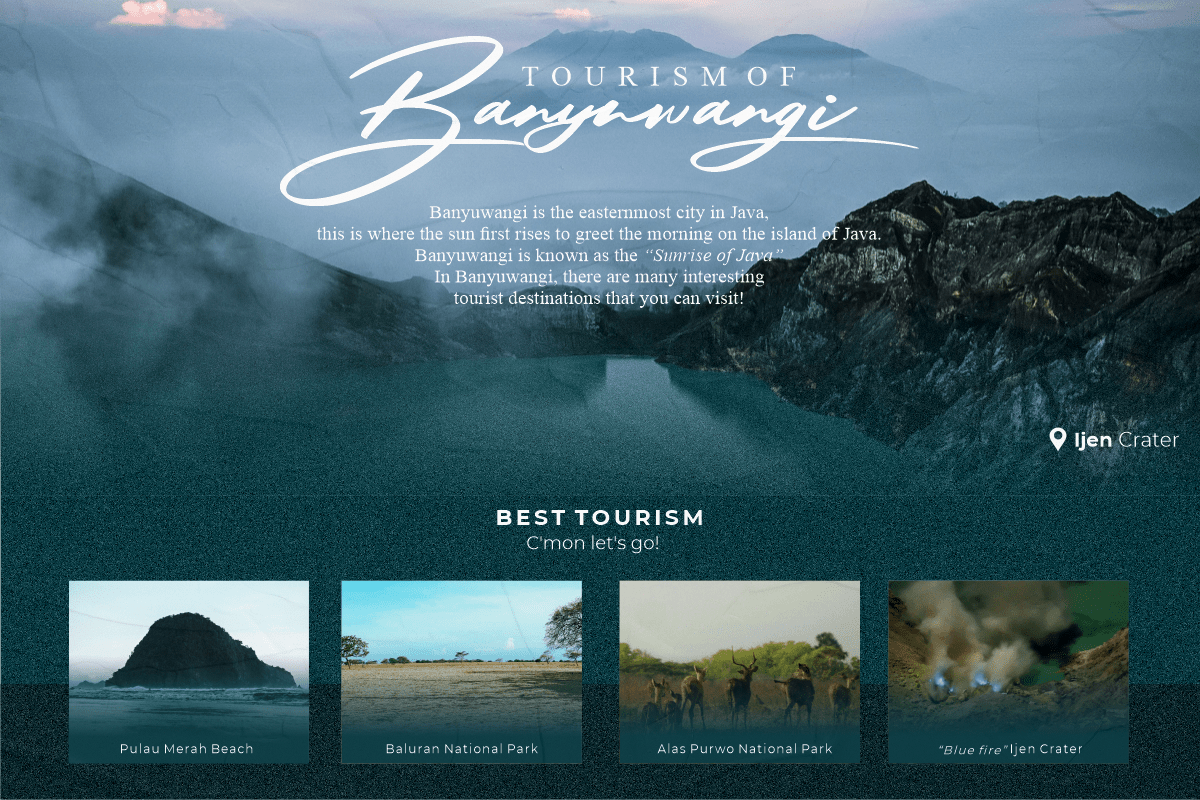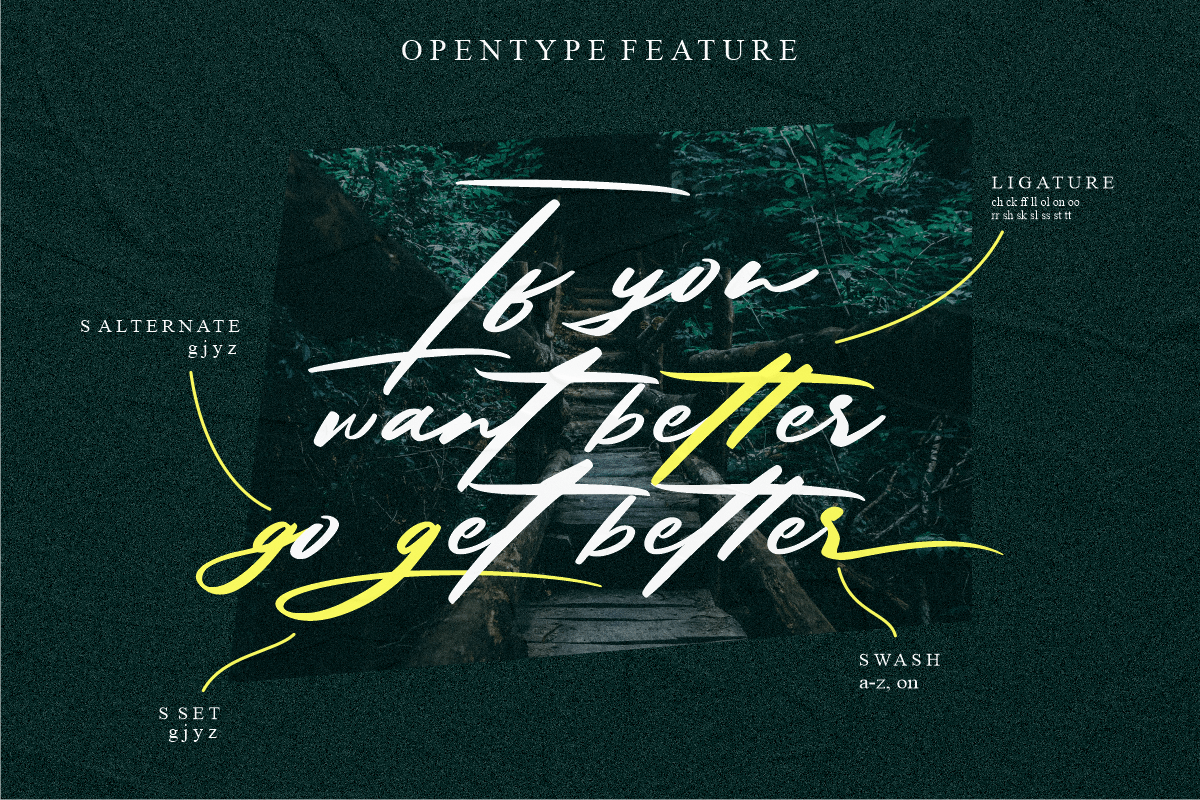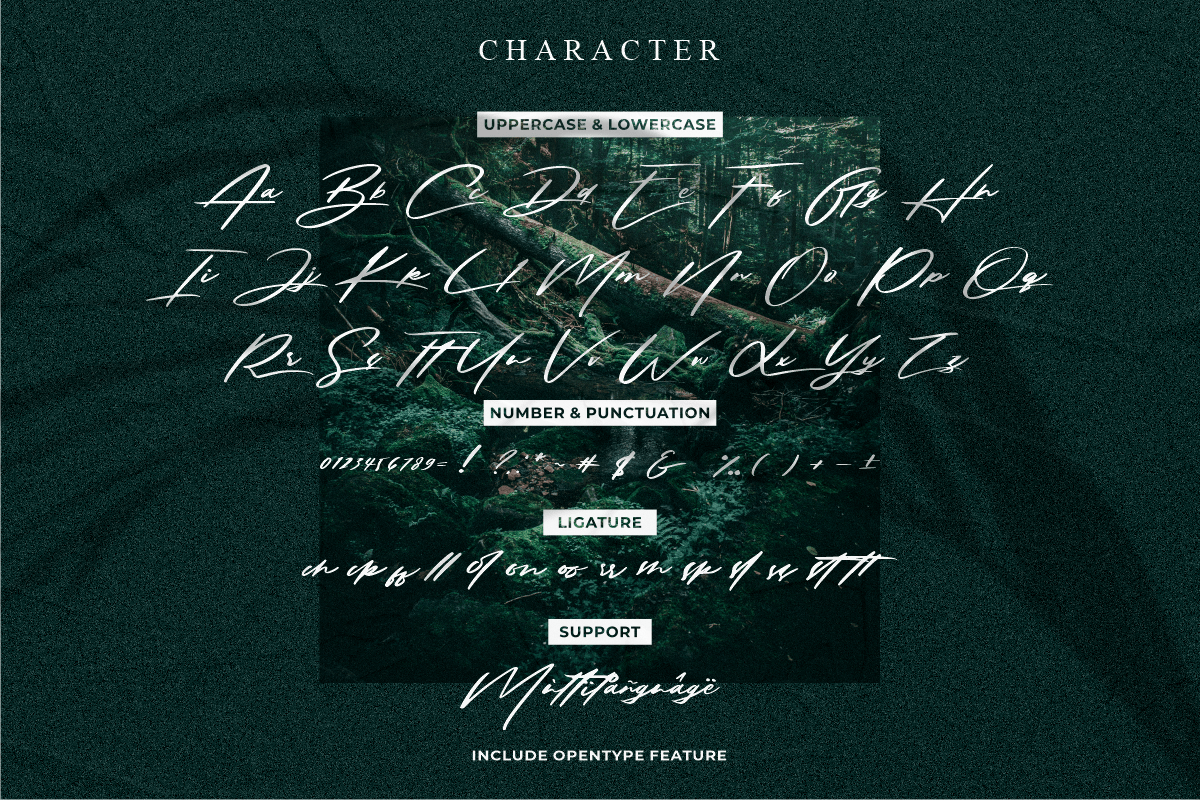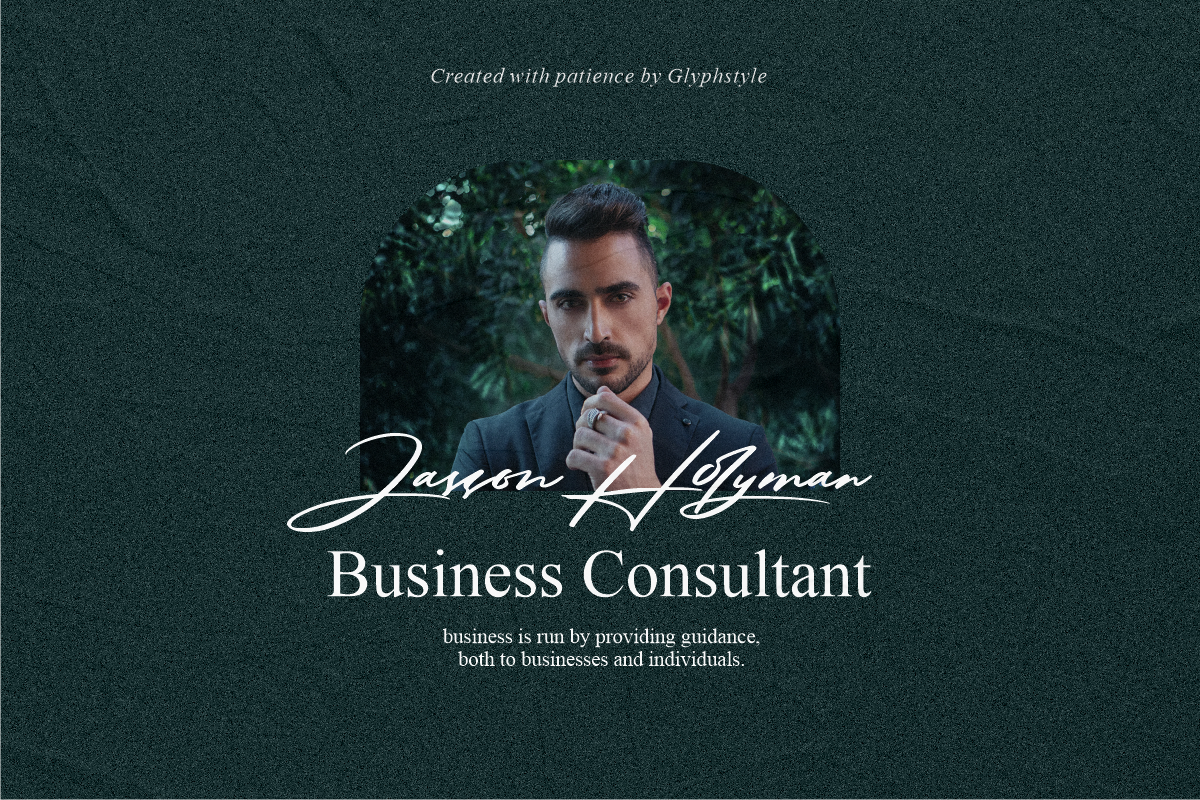
Solustion Font
Solustion Script Font
This is a signature style font that looks both bold and sheer. An elegant looking font and lots of unique characters like natural hand strokes.